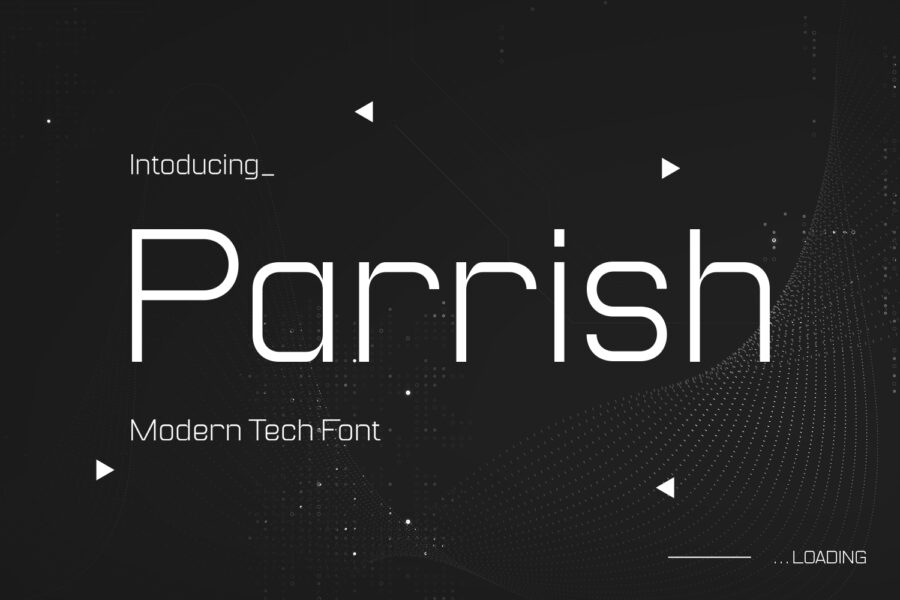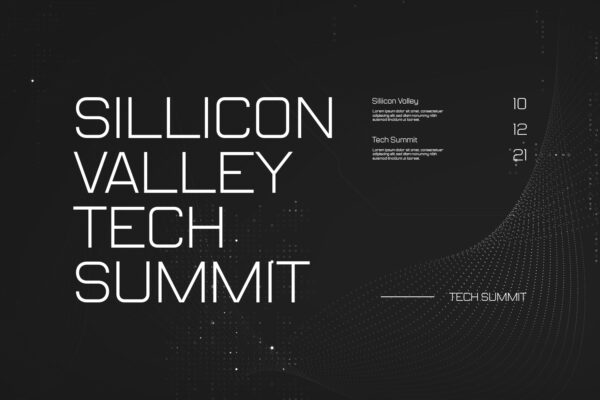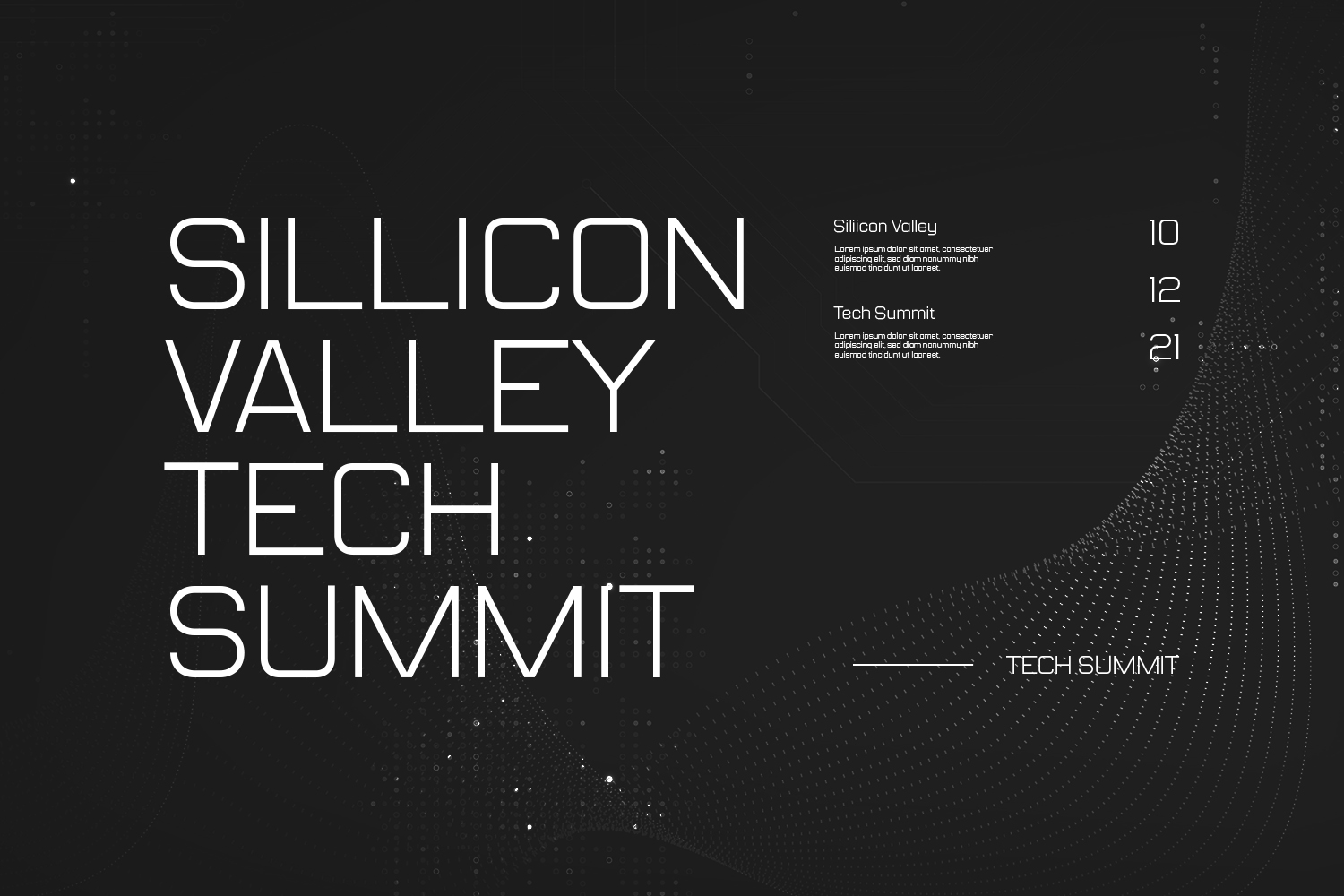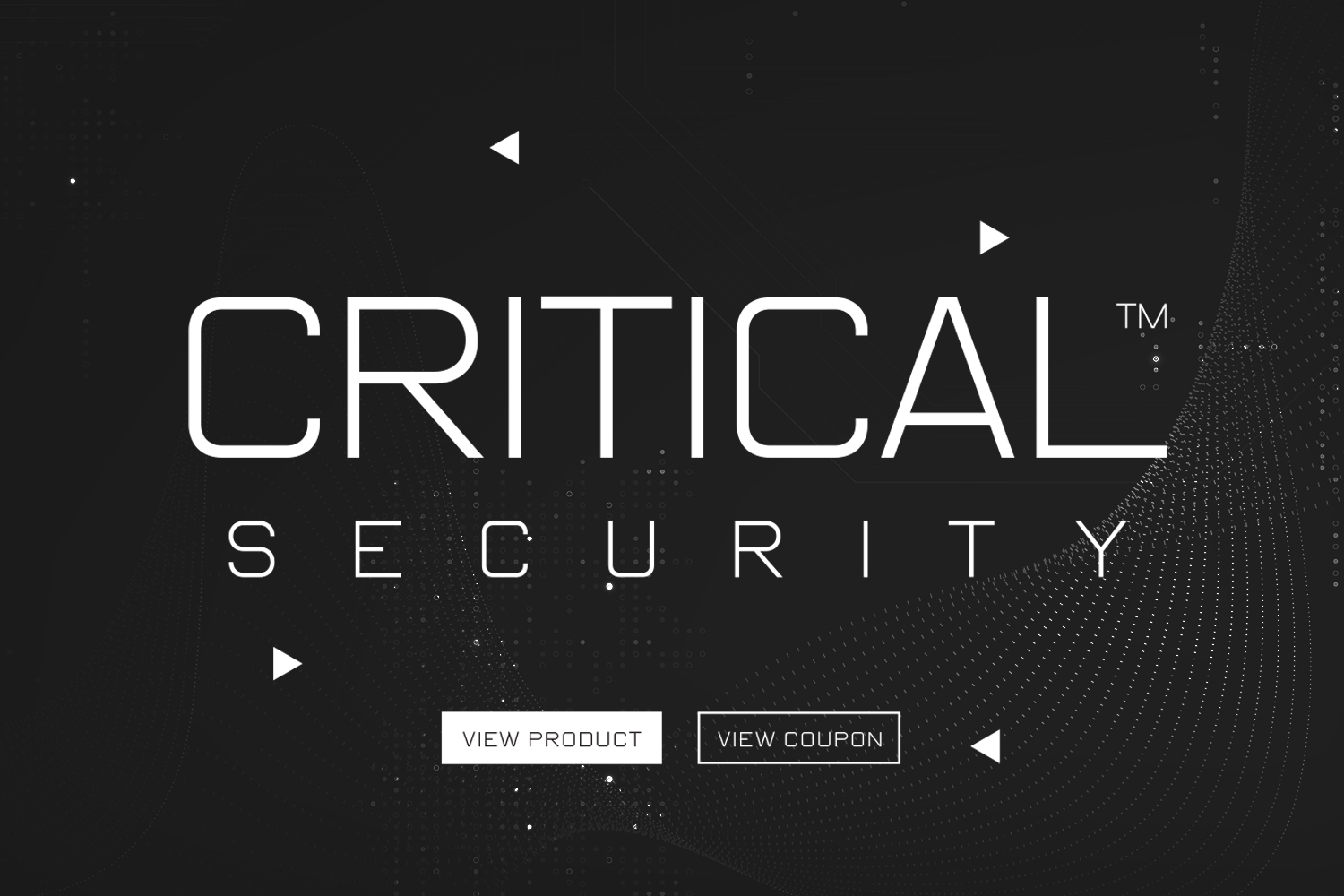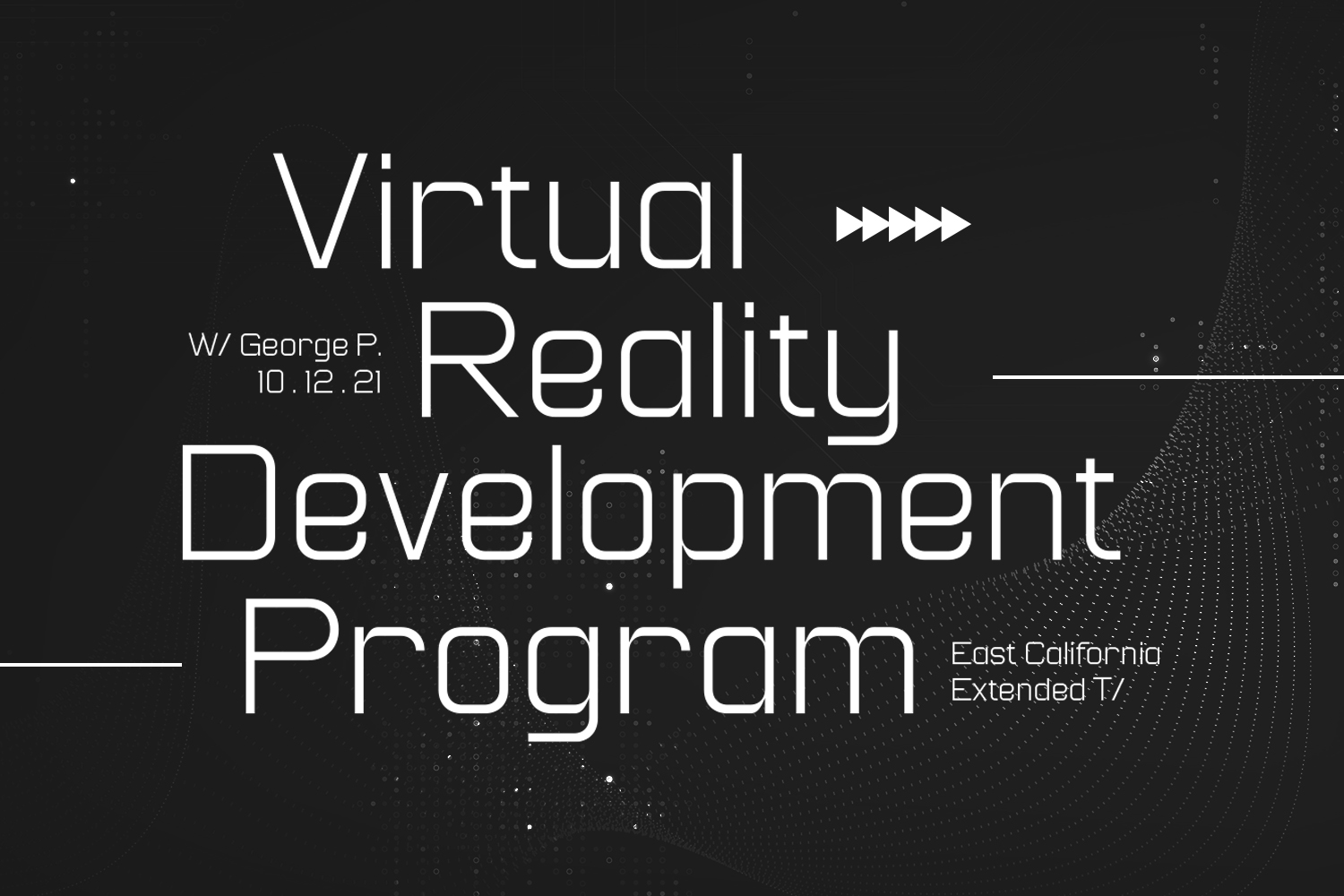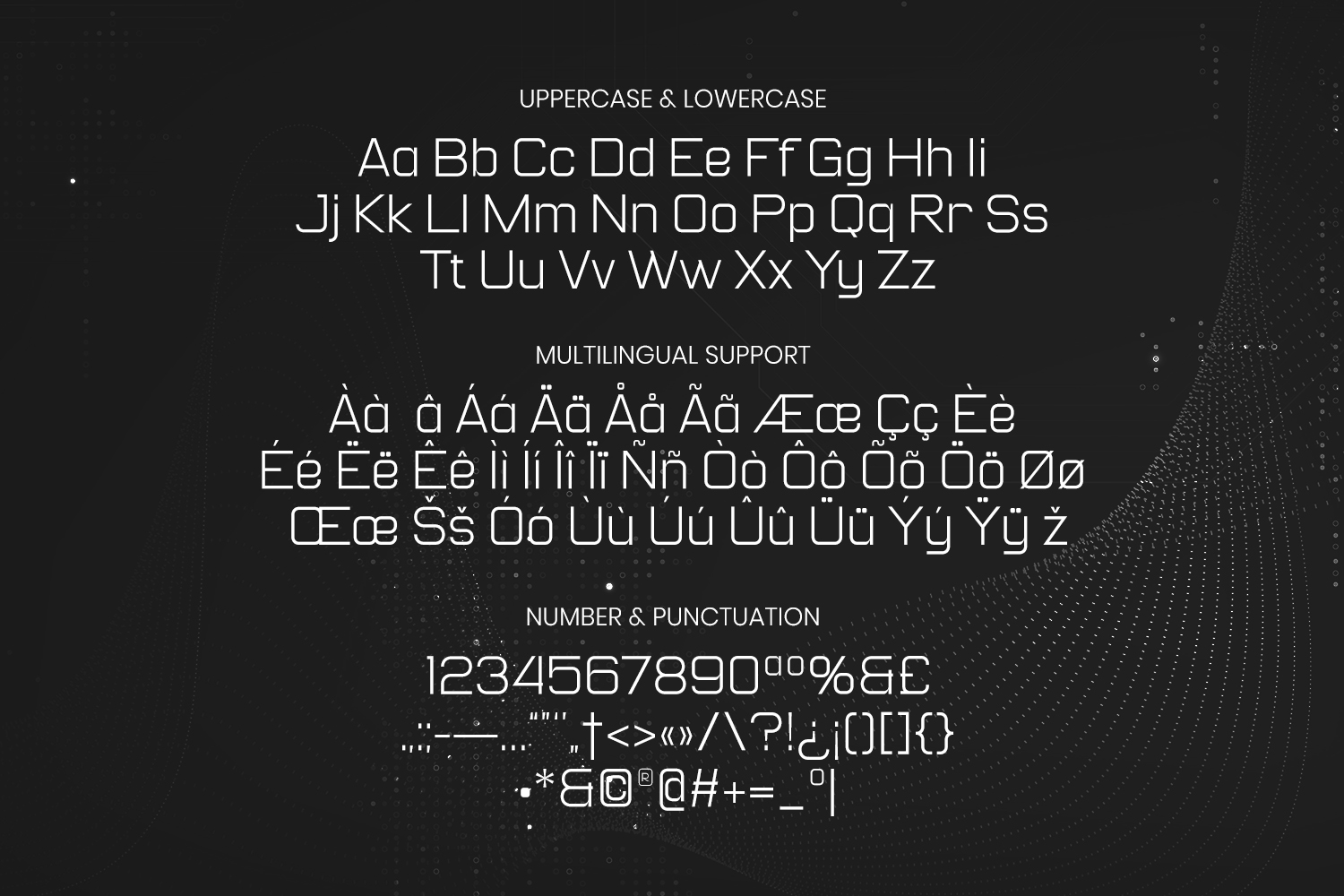
Parrish is a sleek modern sans serif font designed for futuristic and tech-driven visuals. With its precise geometric structure and minimalist character forms, Parrish offers a clean and intelligent tone that enhances digital interfaces, cybersecurity presentations, or virtual development campaigns. The font’s tight letter spacing and consistent rhythm make it perfect for UI/UX, headline displays, or branding that demands a cutting-edge edge.
This typeface includes uppercase, lowercase, numerals, punctuations, and extensive multilingual support, making it versatile across global tech and startup applications. Whether you’re creating event posters, data dashboards, or immersive VR titles, Parrish ensures every word feels sharp, innovative, and digitally refined.
Parrish